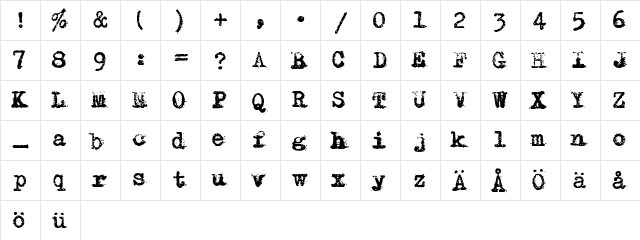
Typewriter - Remington RIVIERA Regular
Design Context for Typewriter - Remington RIVIERA Typeface
Typewriter - Remington RIVIERA uses fixed-width spacing throughout, giving it the structured, systematic character associated with coding environments and technical documentation.
Pro Tip: Use Typewriter - Remington RIVIERA with slightly increased line-height for extended reading — fixed-width spacing can feel dense in longer passages without extra breathing room.